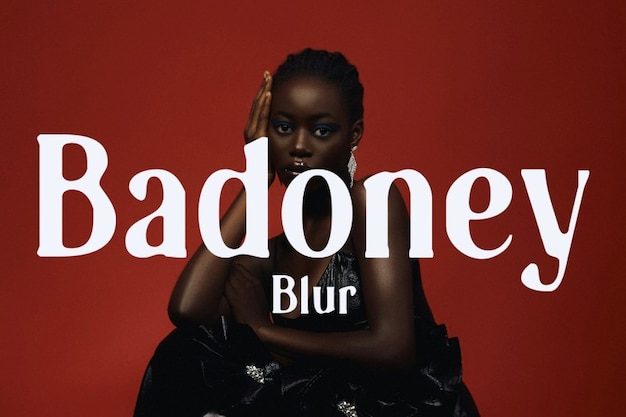
Badoney Blur Regular
Badoney Blur Regular Font
Craft Supply Co.
"Badoney Blur Regular" font blurs the lines of clarity, offering a simple yet intriguing design. With its unfocused appearance, each letter invites interpretation, perfect for designs seeking a minimalist yet thought-provoking aesthetic. Ideal for projects aiming to evoke a sense of ambiguity or abstraction, adding a touch of intrigue to every word.